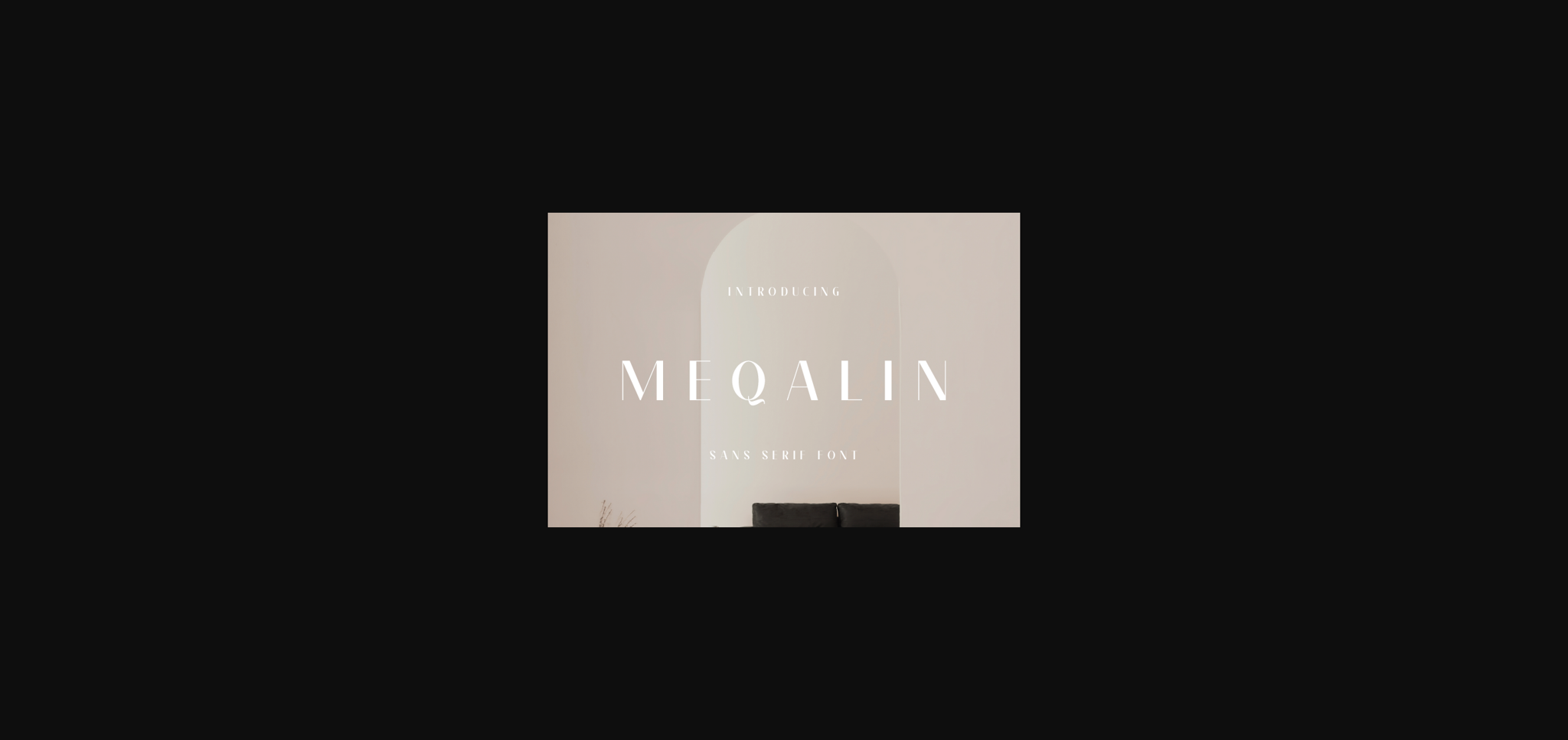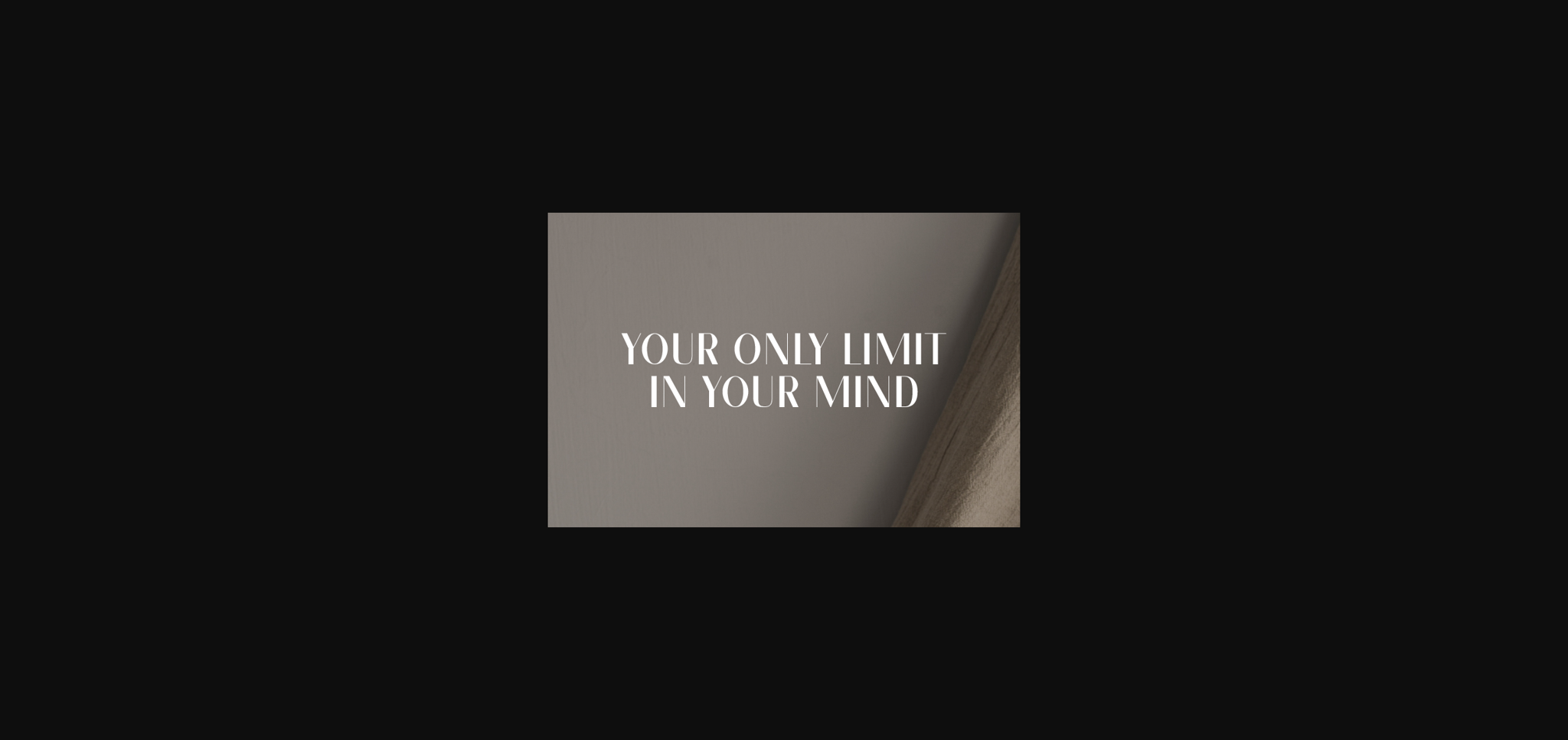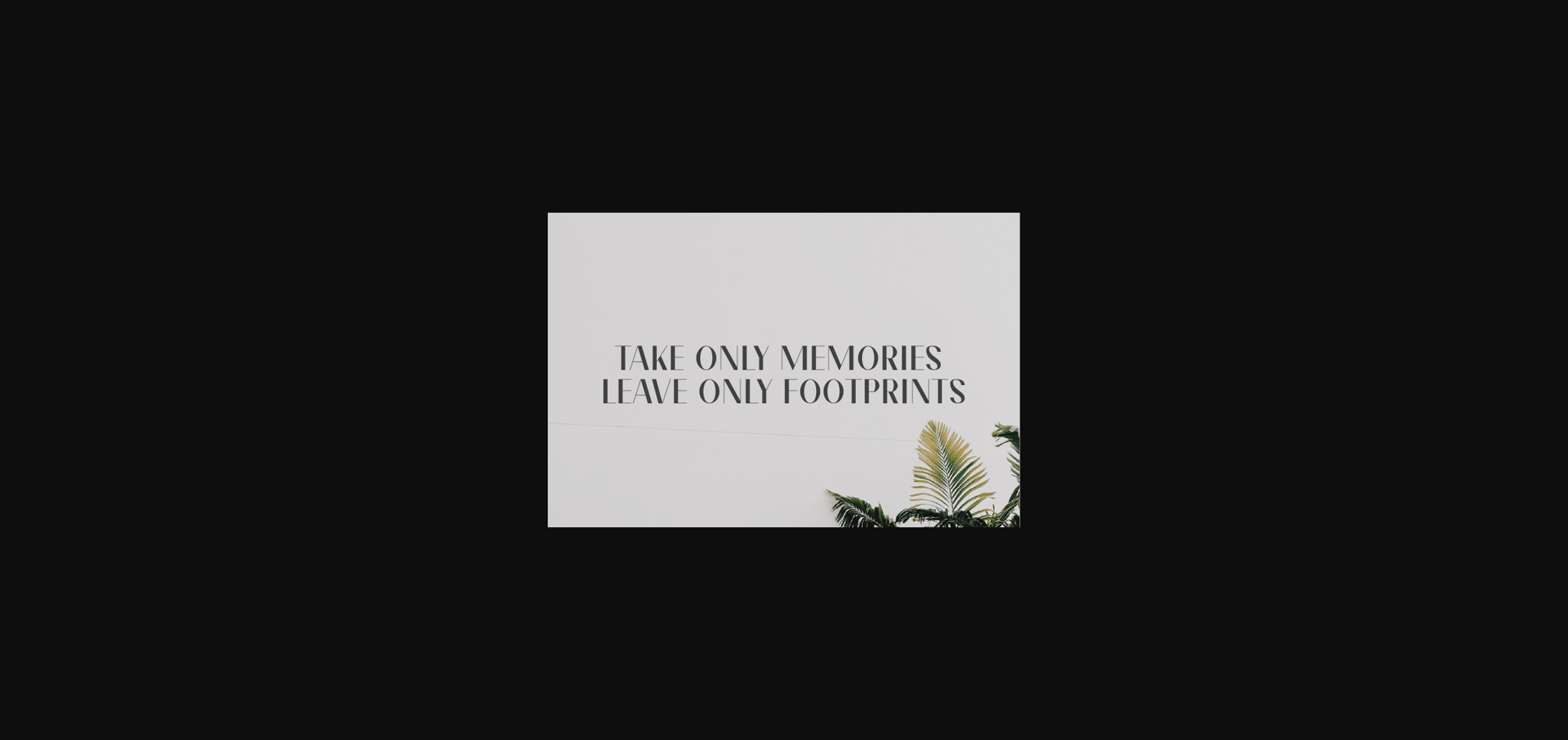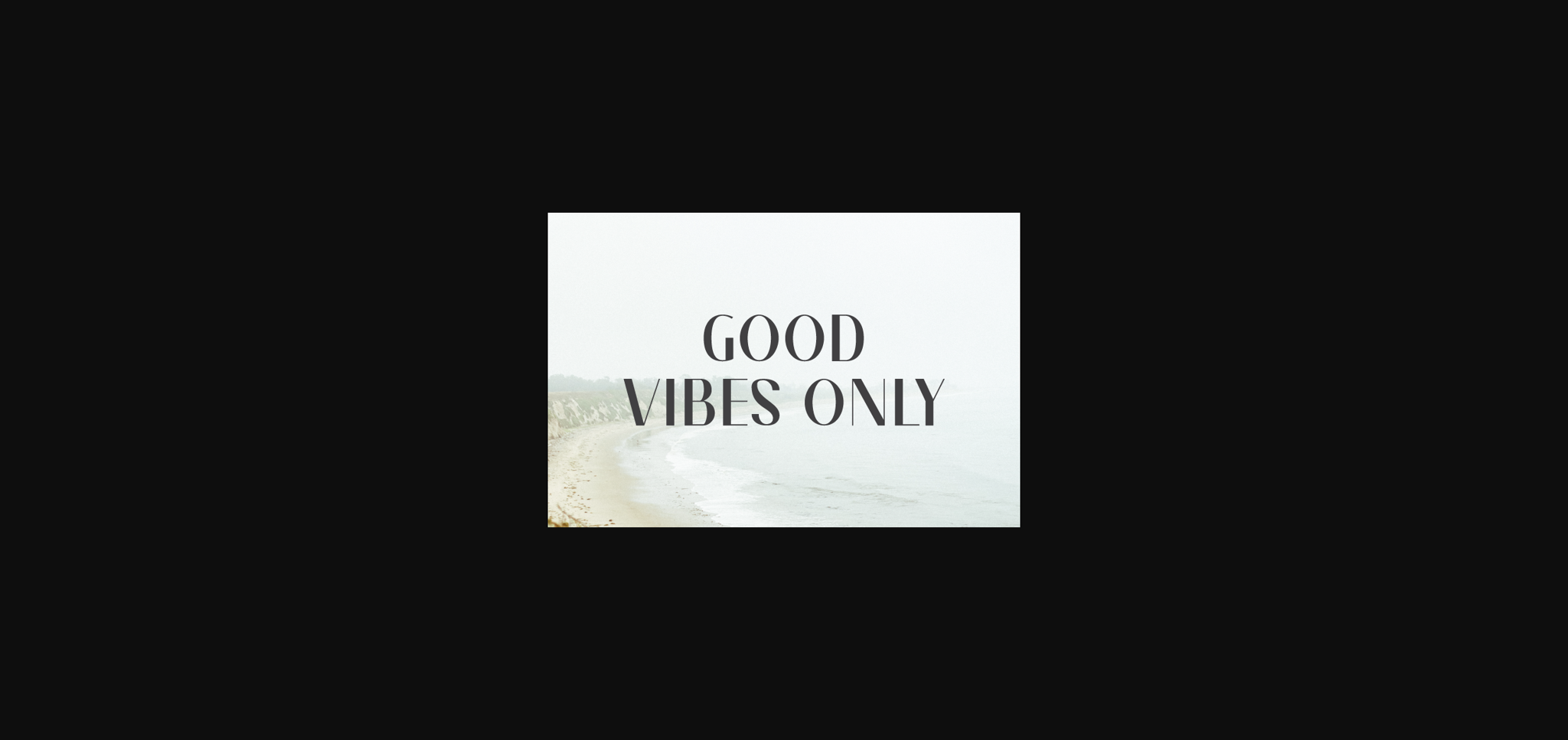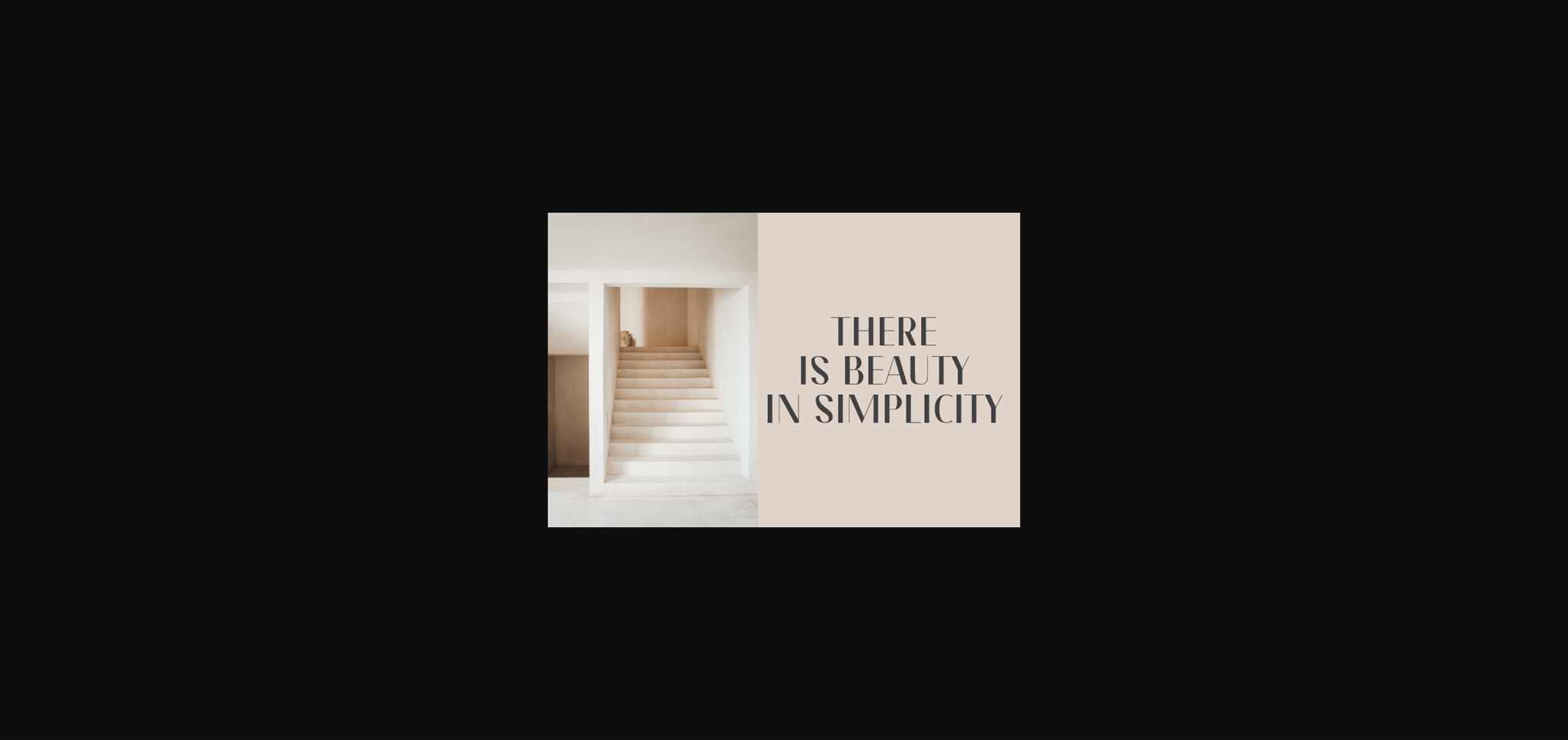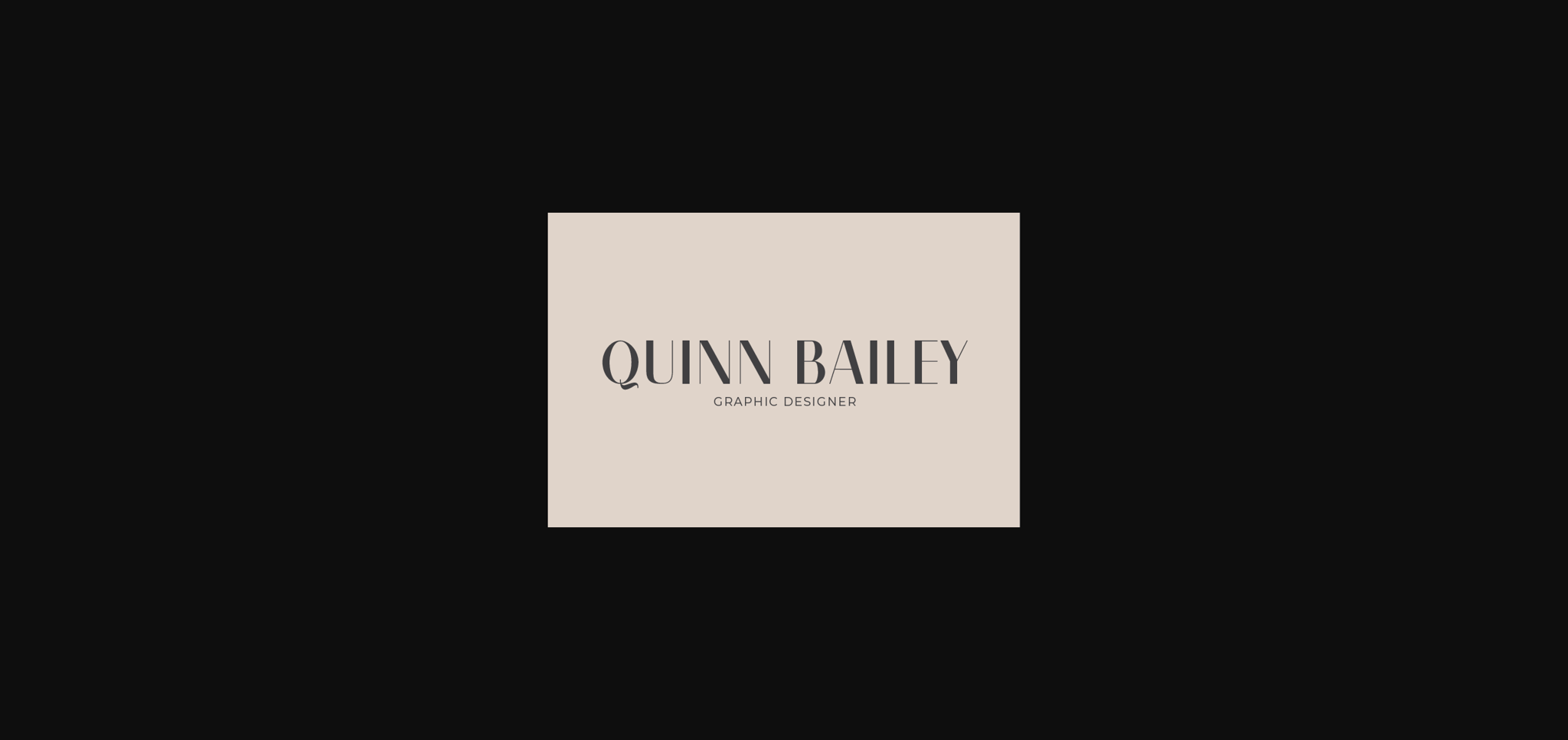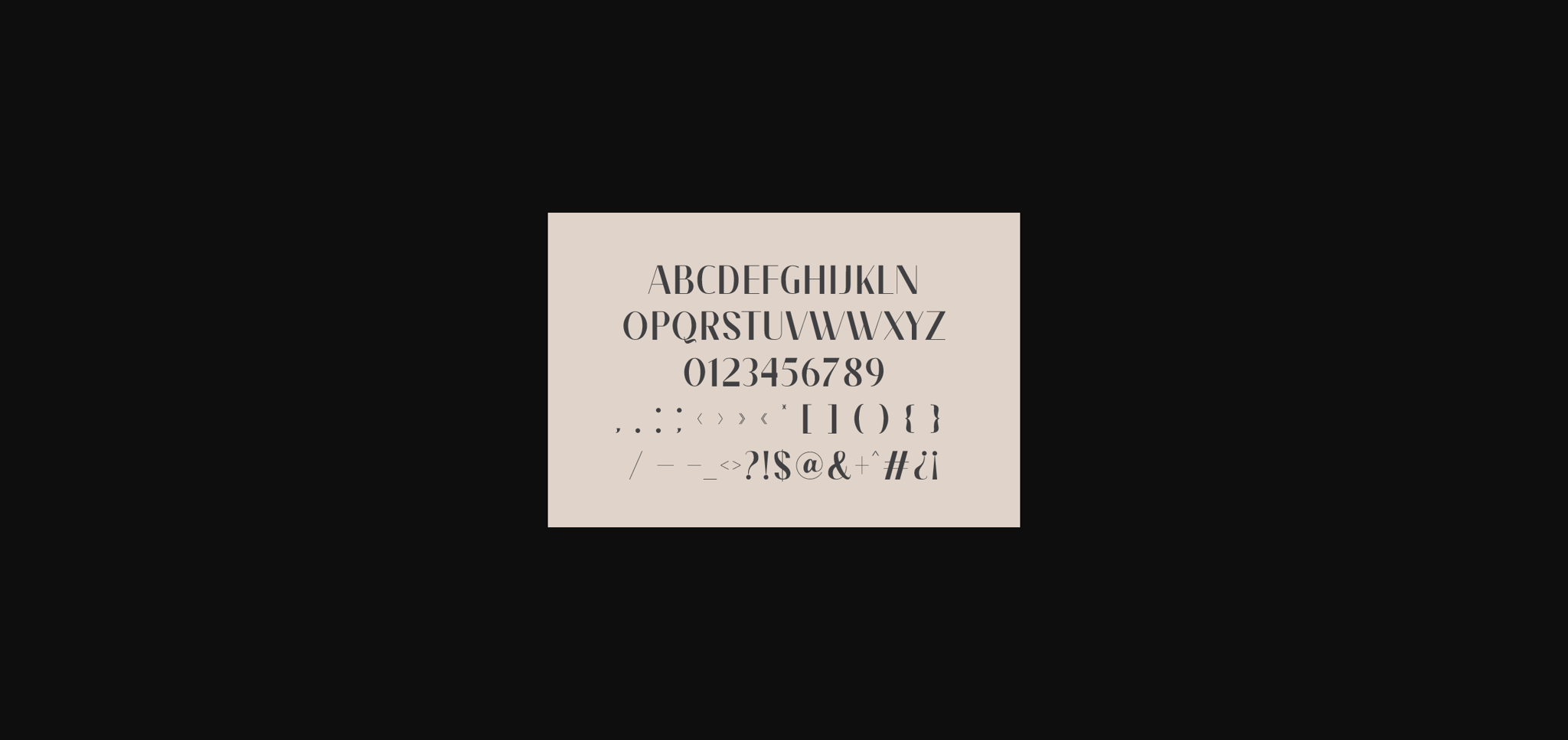
Meqalin Font
About Meqalin Font
Meqalin is a cool and assertive sans serif font. Featuring the perfect amount of trendiness, this font will make your designs come to life. Meqalin is PUA encoded which means you can access all of the glyphs. Don’t hesitate to add it to your creative projects, and be amazed by its fantastic results!